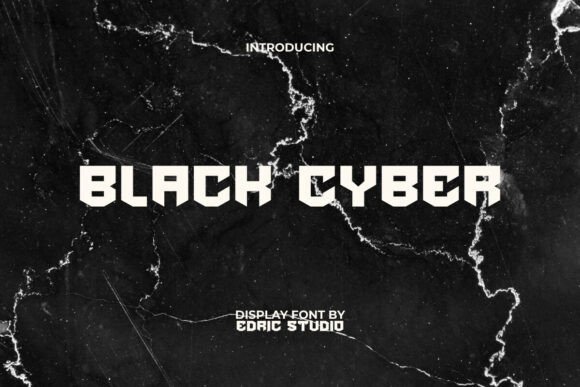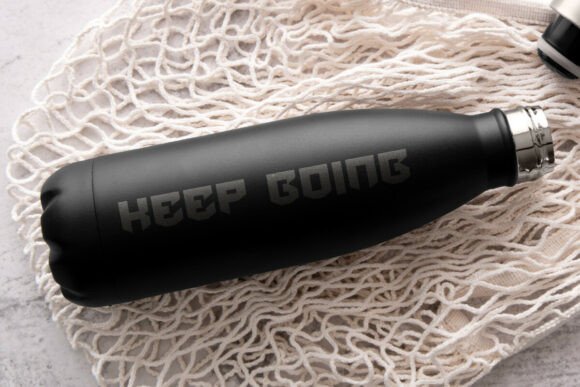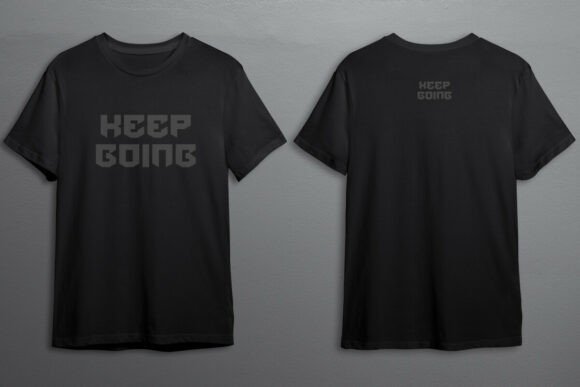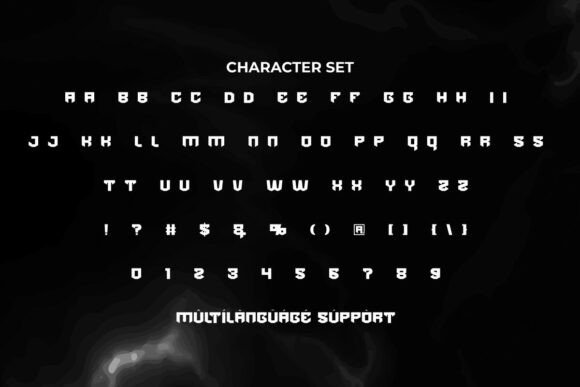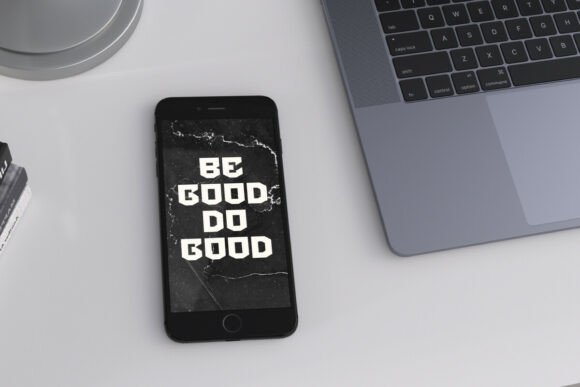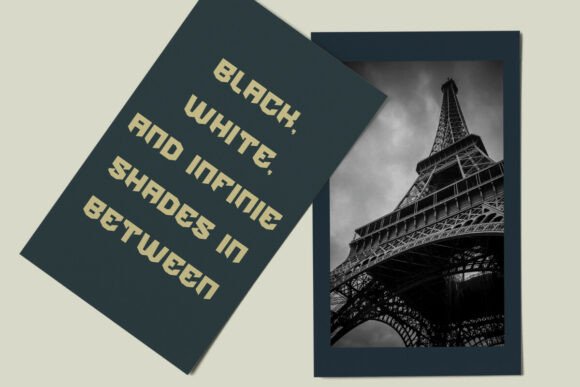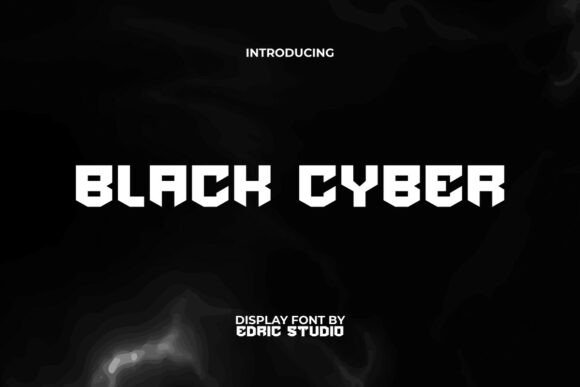
Introducing Black Cyber Font: The Ultimate Choice for Futuristic Designs
Step into the future with Black Cyber font, a heavy, tech-inspired display typeface that bridges the gap between industrial design and sci-fi aesthetics. This bold and futuristic font is perfect for designers and crafters looking to add a modern, digital edge to their projects. In this article, we’ll explore the features and benefits of Black Cyber font, and why it’s the ultimate choice for e-sports branding, cyberpunk-themed media, and automotive design projects.
A Font that Embodies Industrial Strength and Futuristic Flair
The Black Cyber typeface features chamfered corners, wide proportions, and a modular construction that feels solid and indestructible. Its heavy, tech-inspired design makes it perfect for creating a strong and lasting impression. The font’s industrial strength is balanced by its futuristic flair, making it an ideal choice for designers who want to create a cutting-edge look.
Key Features of Black Cyber Font
• Chamfered Corners: The font’s chamfered corners give it a sleek and modern look, while also providing a sense of industrial strength.
• Wide Proportions: The wide proportions of the font make it highly legible, even at large sizes.
• Modular Construction: The font’s modular construction gives it a solid and indestructible feel, making it perfect for designs that require a strong and lasting impression.
Perfect for E-Sports Branding and Cyberpunk-Themed Media
The bold, “tech-heavy” look of the Black Cyber font ensures that your message is delivered with maximum impact and a modern, digital edge. Its futuristic design makes it perfect for e-sports branding, cyberpunk-themed media, and automotive design projects. Whether you’re building a futuristic user interface or a bold gaming logo, this font provides the structural strength and “next-gen” feel required for cutting-edge design.
Enhance the Futuristic Vibe with Glow Effects and Metallic Textures
To take your design to the next level, you can enhance the futuristic vibe of the Black Cyber font by applying glow effects or metallic textures to the letterforms. This will give your design a truly cutting-edge look that’s sure to grab attention.
Why Choose Black Cyber Font?
So why choose Black Cyber font for your next project? Here are just a few reasons:
• Unique and Futuristic Design: The Black Cyber font has a unique and futuristic design that’s sure to grab attention.
• Highly Legible: The font’s wide proportions and chamfered corners make it highly legible, even at large sizes.
• Versatile: The font is versatile and can be used for a wide range of projects, from e-sports branding to automotive design.
• Easily Customizable: The font is easily customizable, allowing you to add your own unique touch to your design.
In conclusion, Black Cyber font is the ultimate choice for designers and crafters looking to add a modern, digital edge to their projects. Its unique and futuristic design, combined with its industrial strength and versatility, make it perfect for e-sports branding, cyberpunk-themed media, and automotive design projects. With its highly legible and easily customizable design, Black Cyber font is sure to become a staple in your font collection.